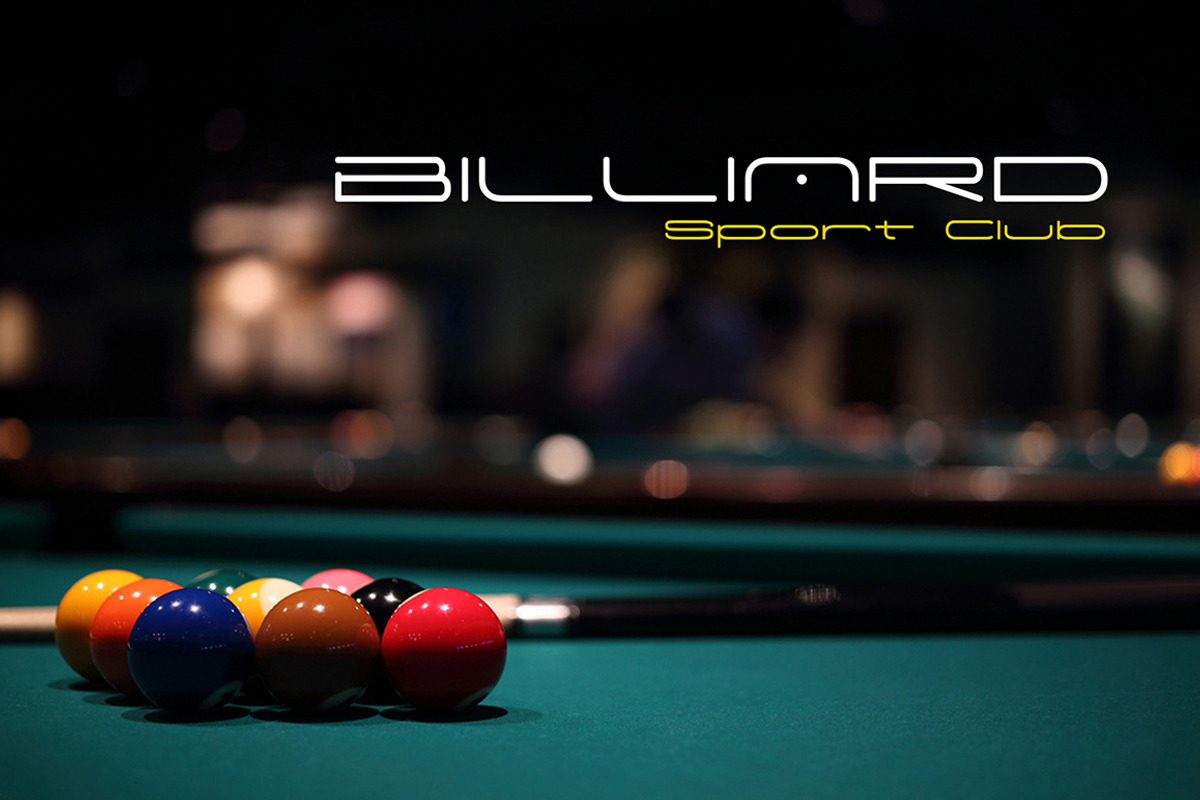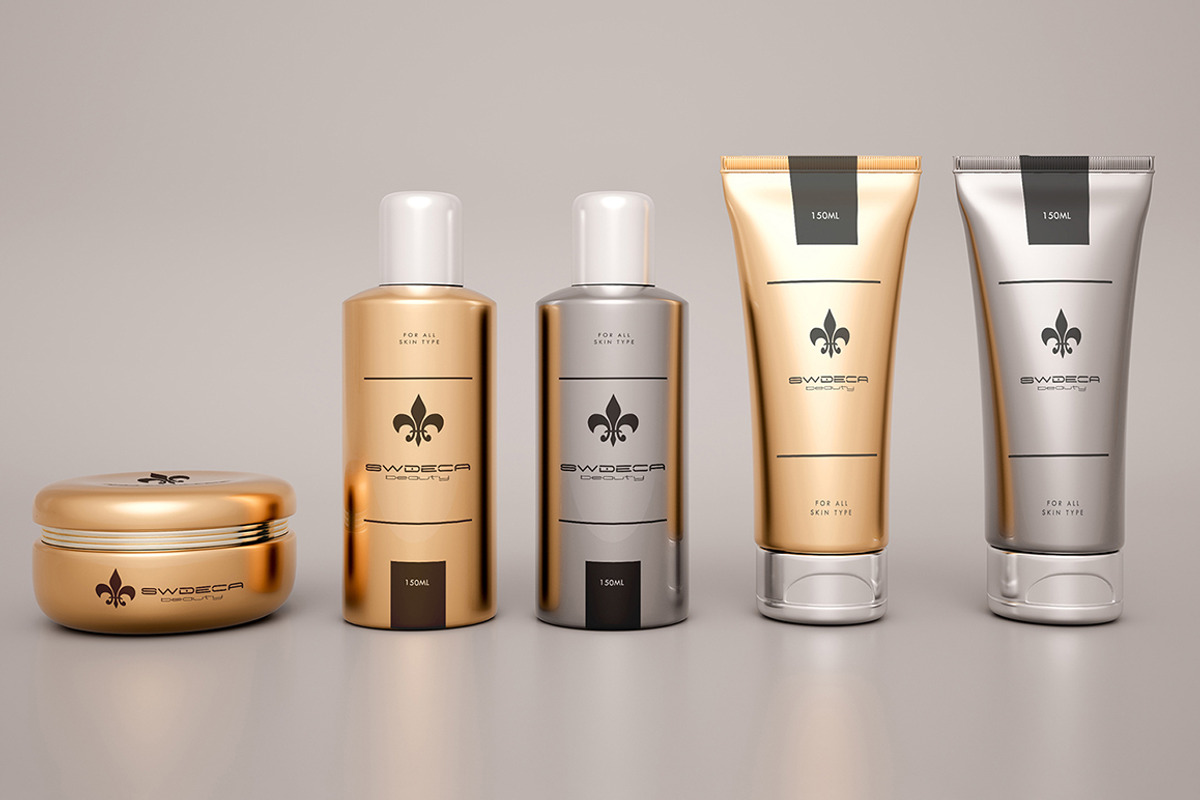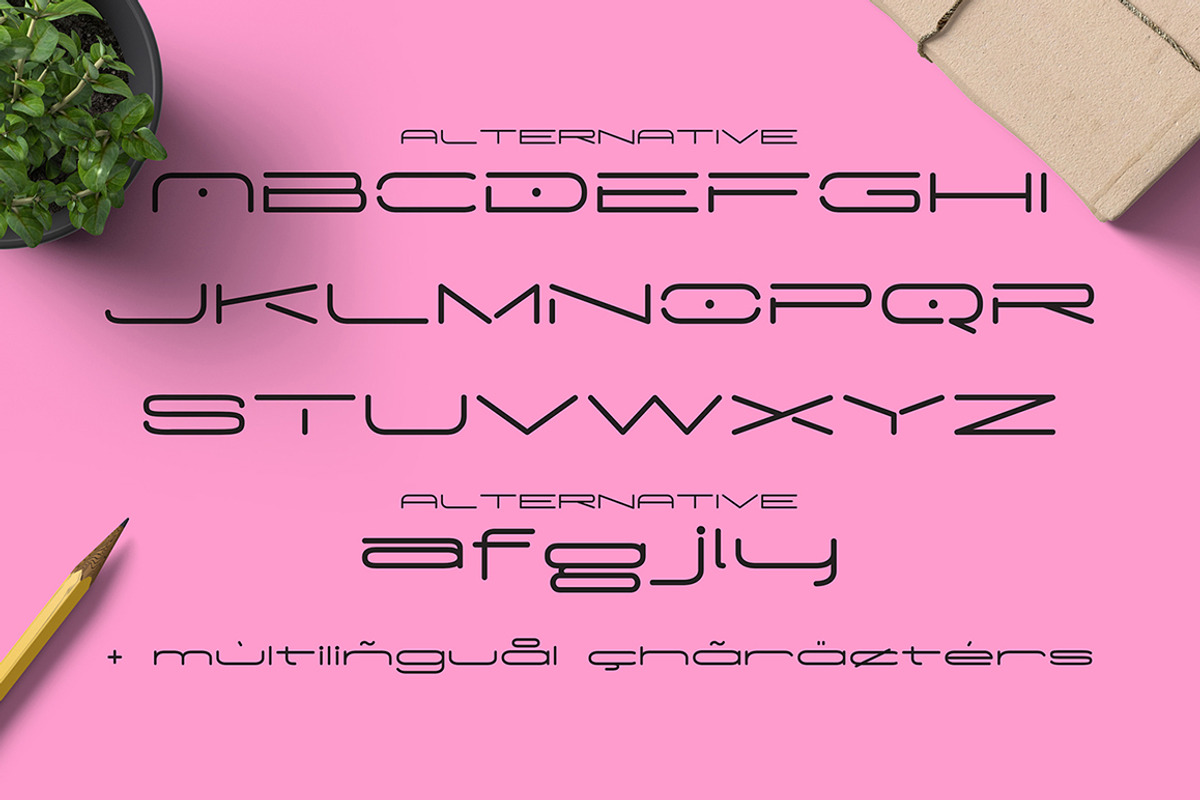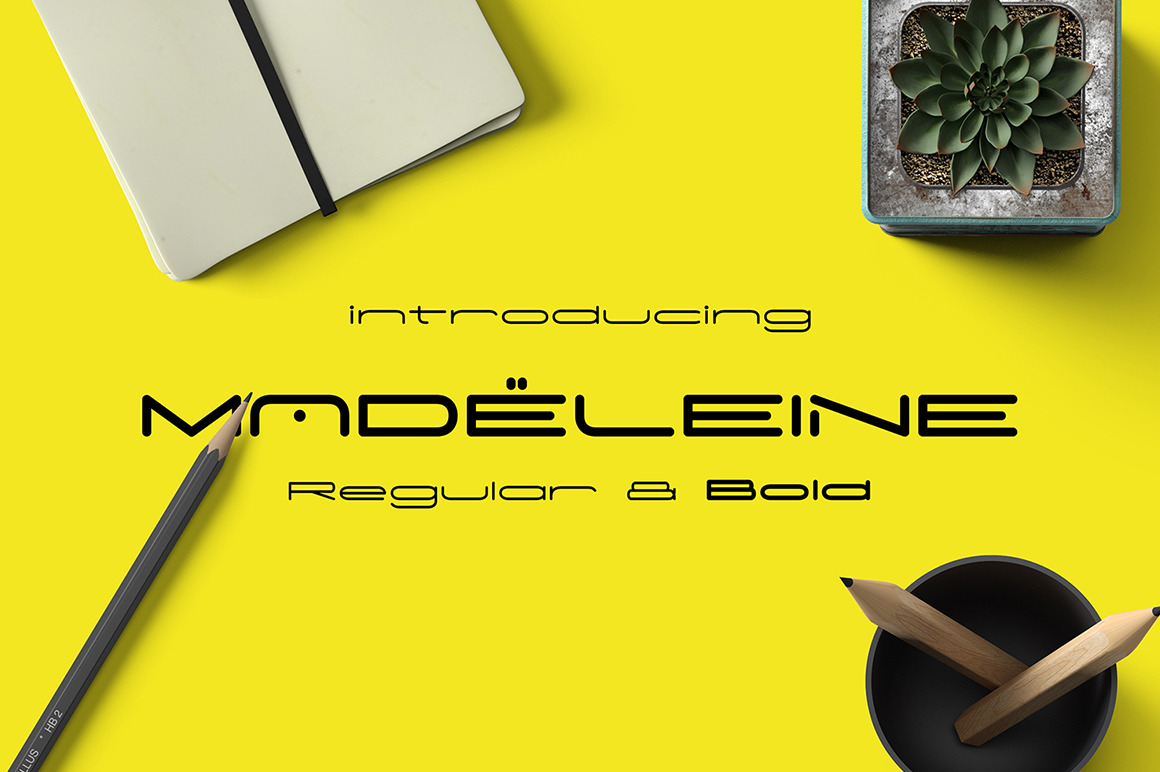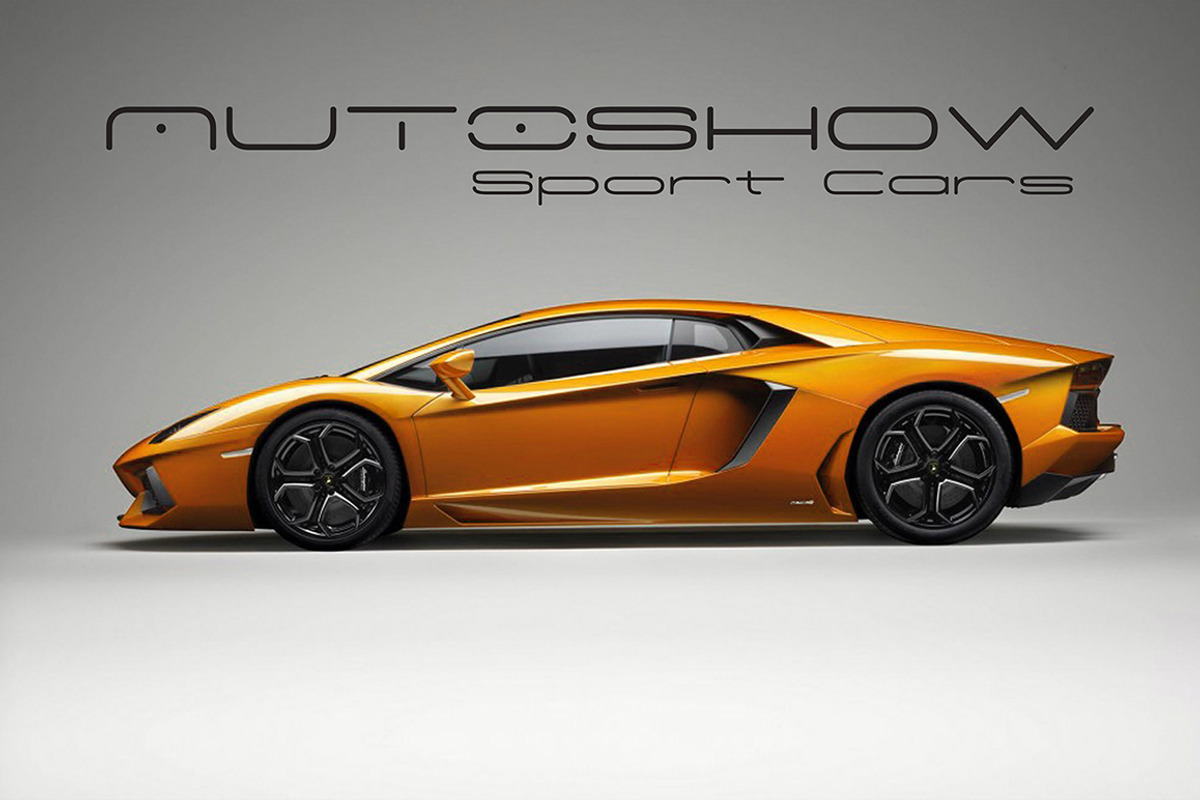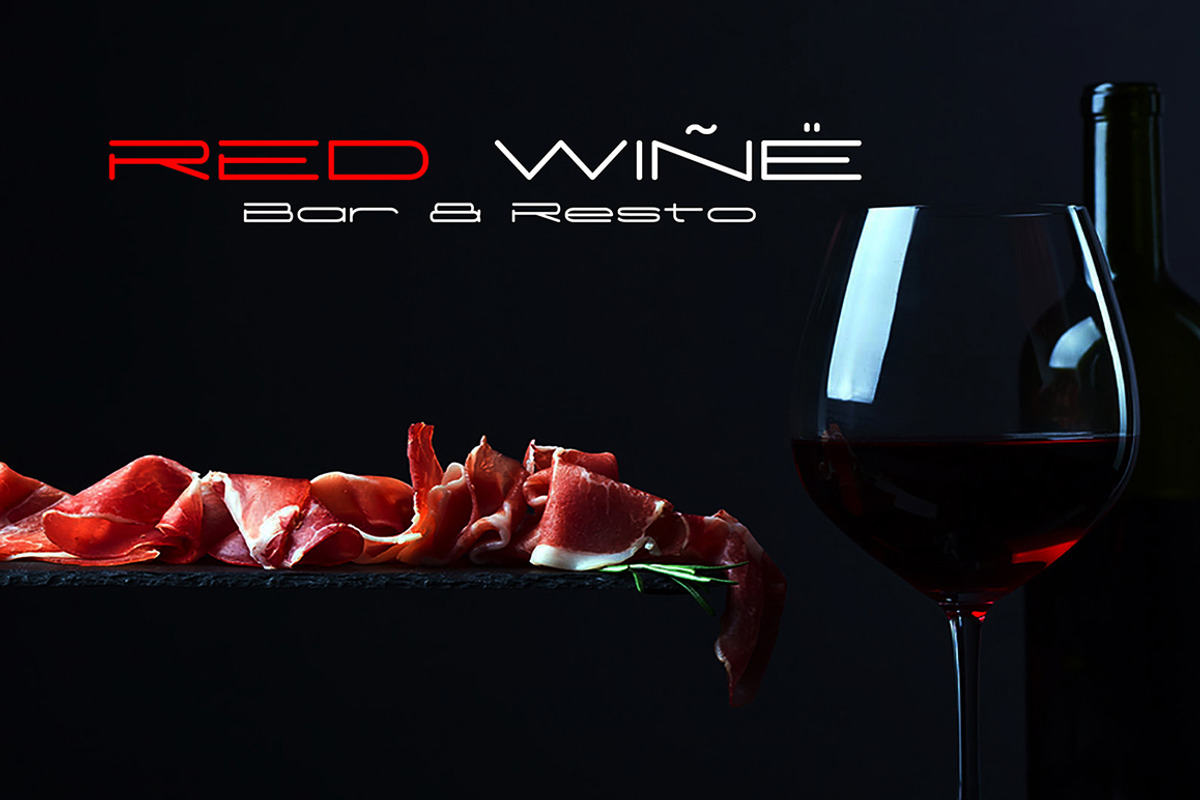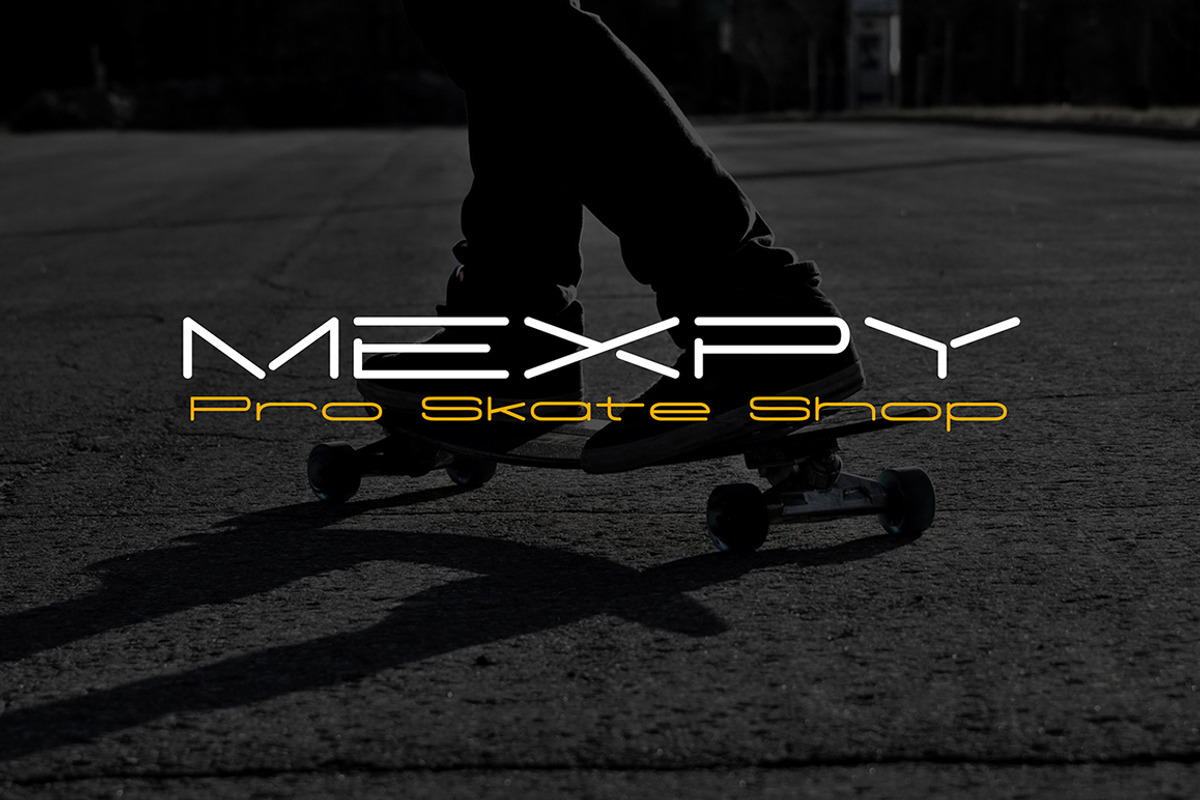
Madeleine Family - Modern Typeface
Hello I'm really excited to introduce Madeleine is a minimal modern and clean font family. suitable to create any branding, product packaging, invitation, t-shirt, label, poster, logo etc.
- UPPERCASE
- lowercase
- International Glyps
- Alternative UPPERCASE and lowercase